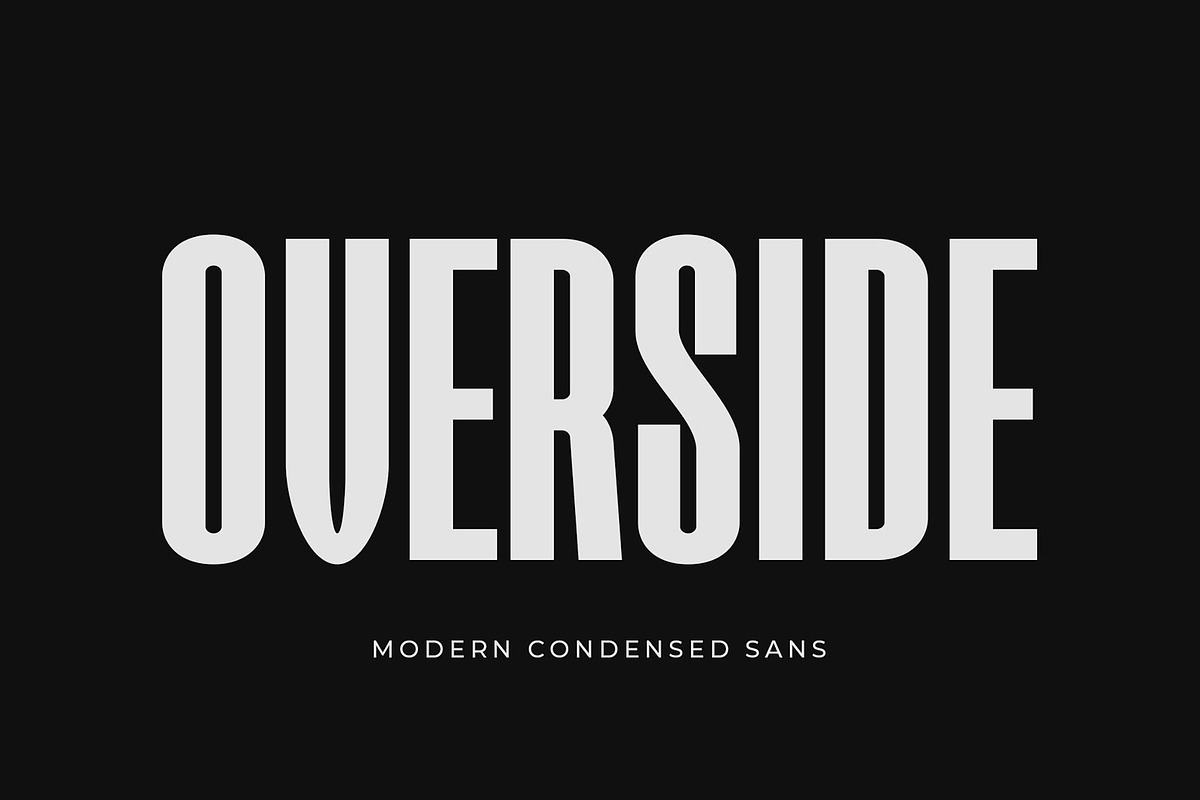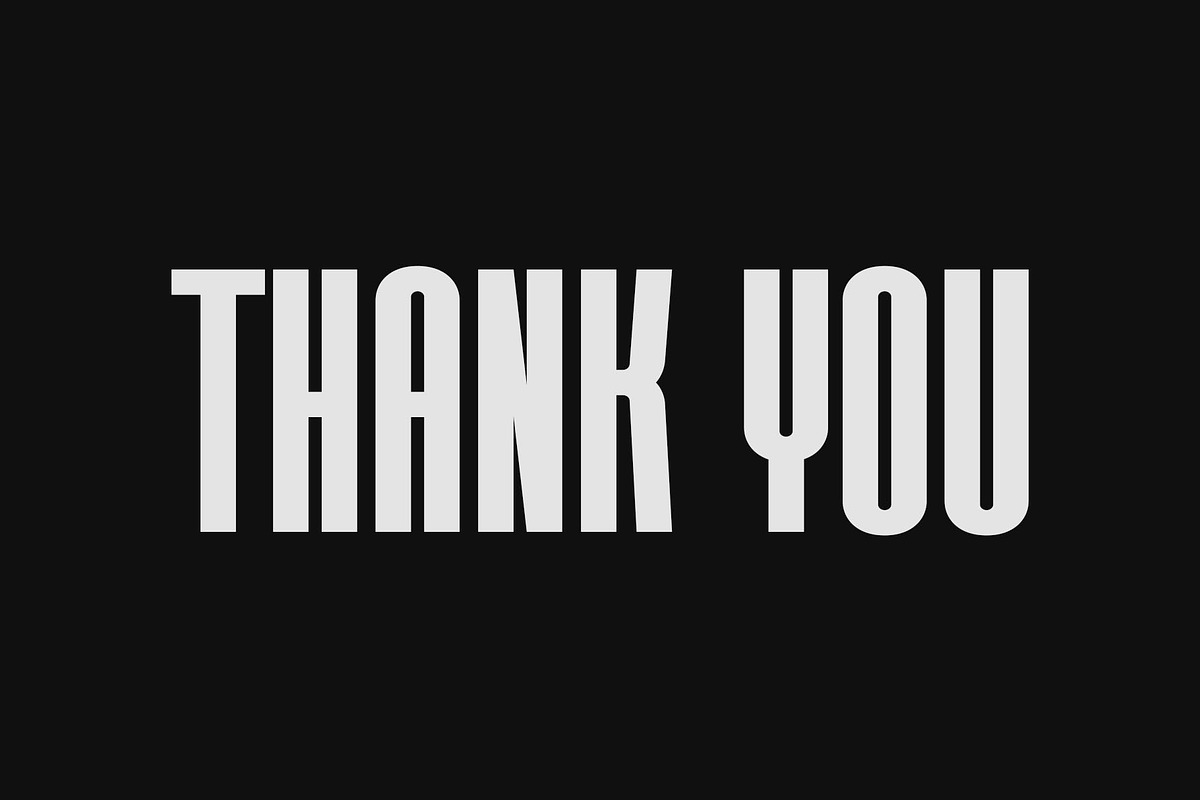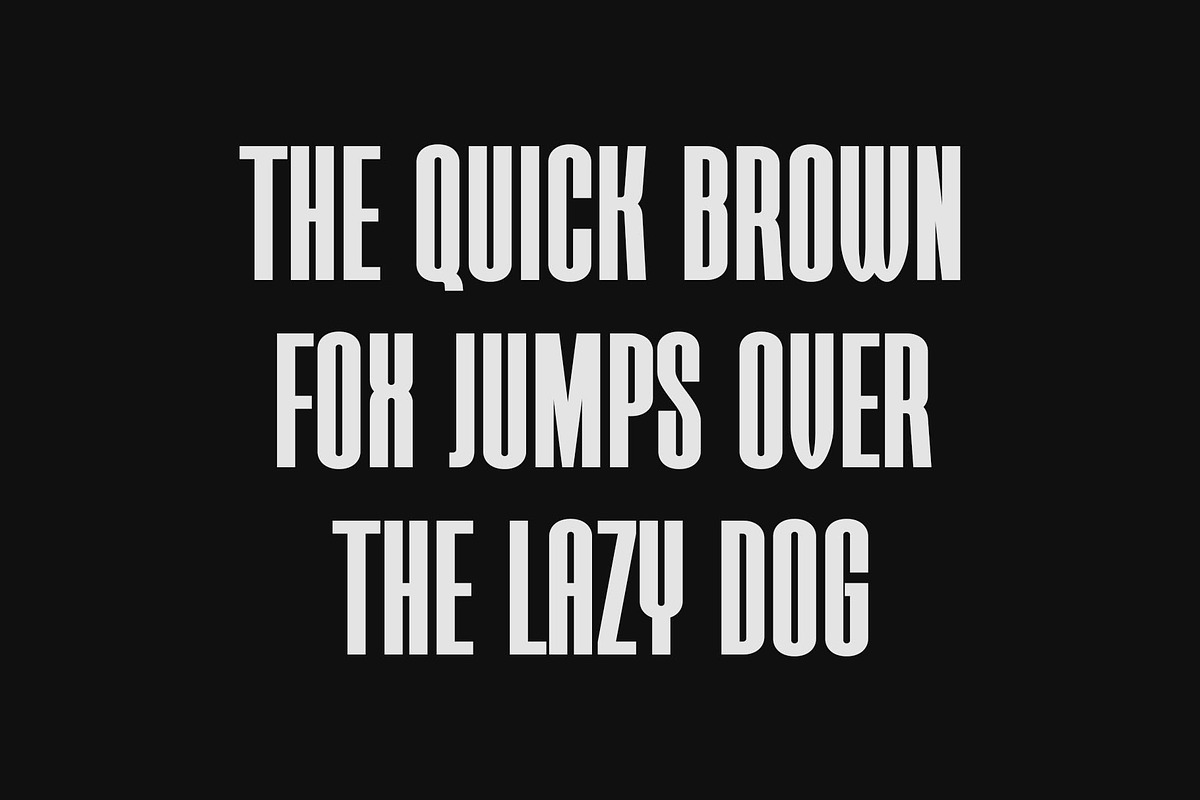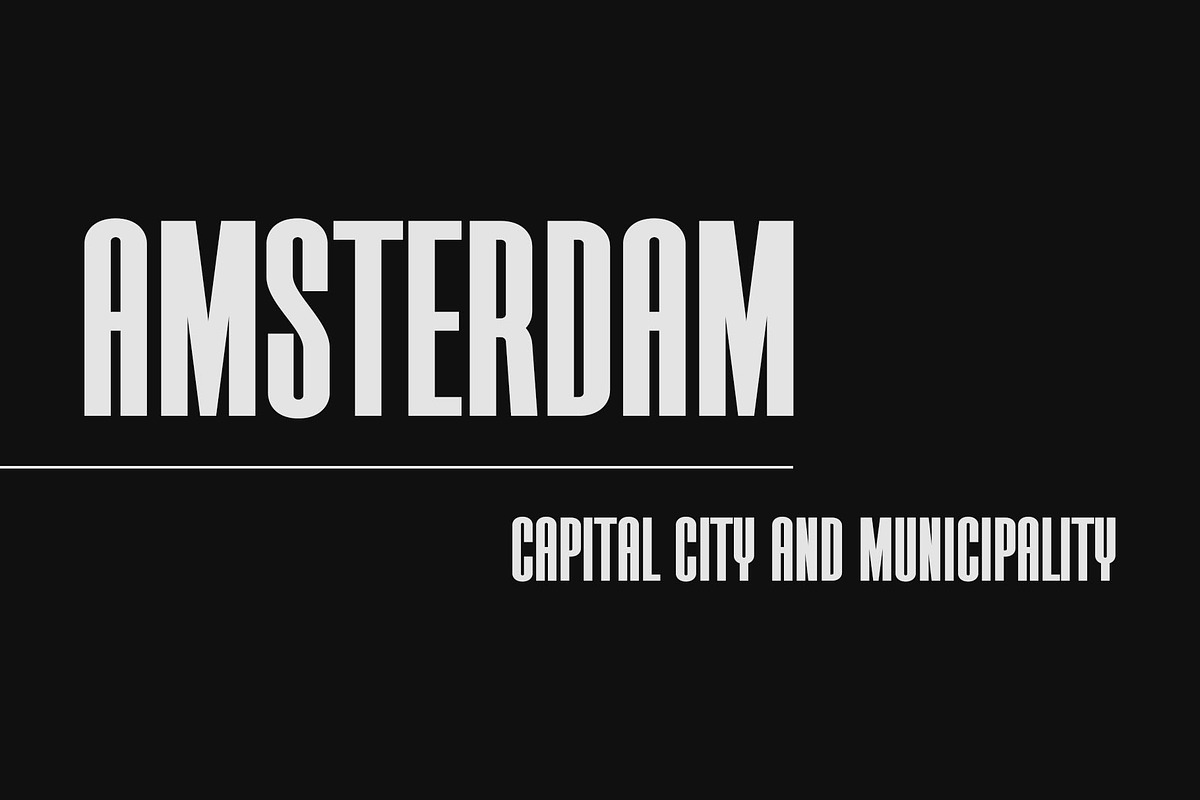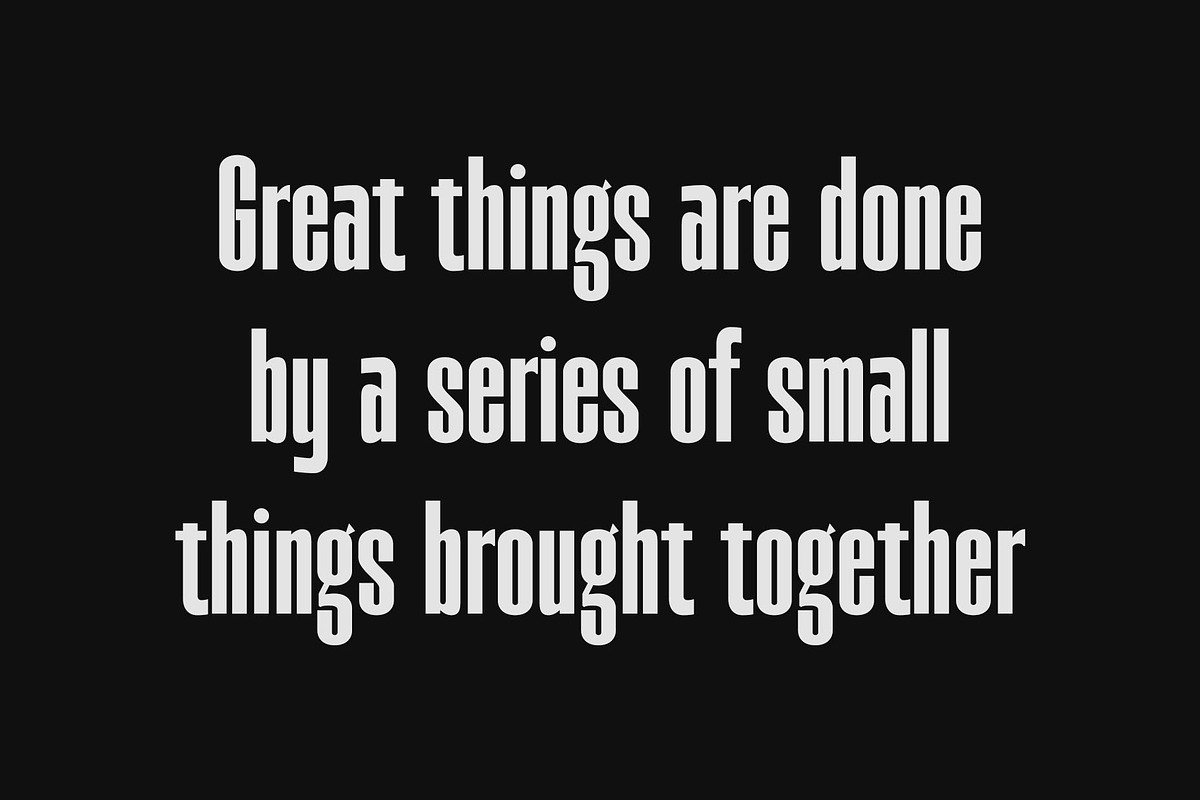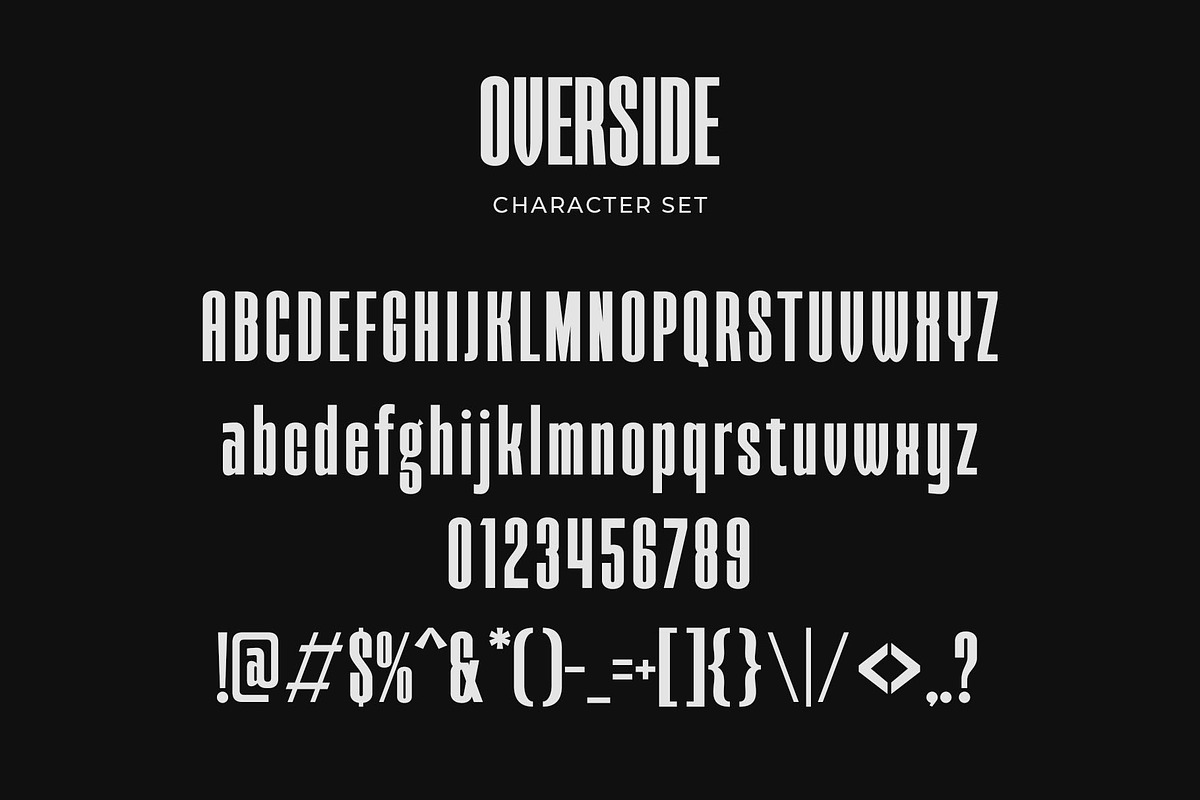
Overside - Modern Condensed Sans
Introducing our new Overside, modern sans serif font with elegant style this is perfect for branding, logos, invitation, magazines, product packaging and more.